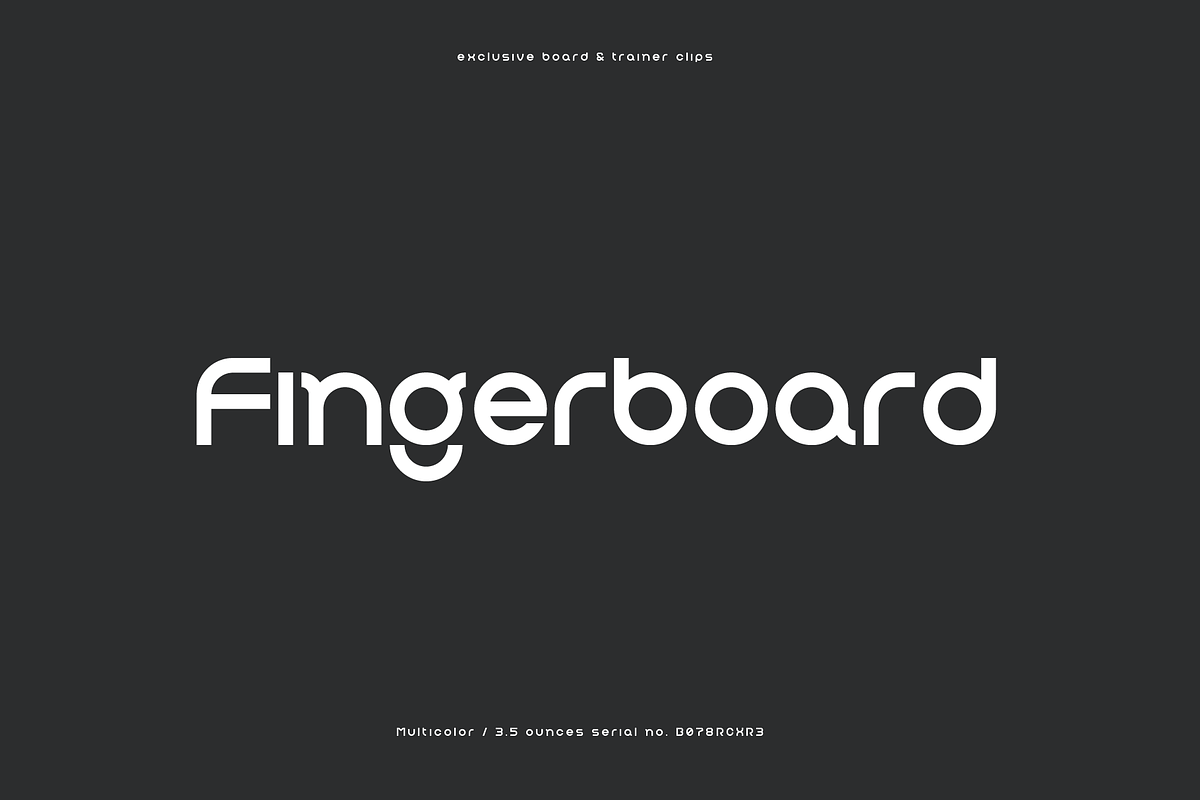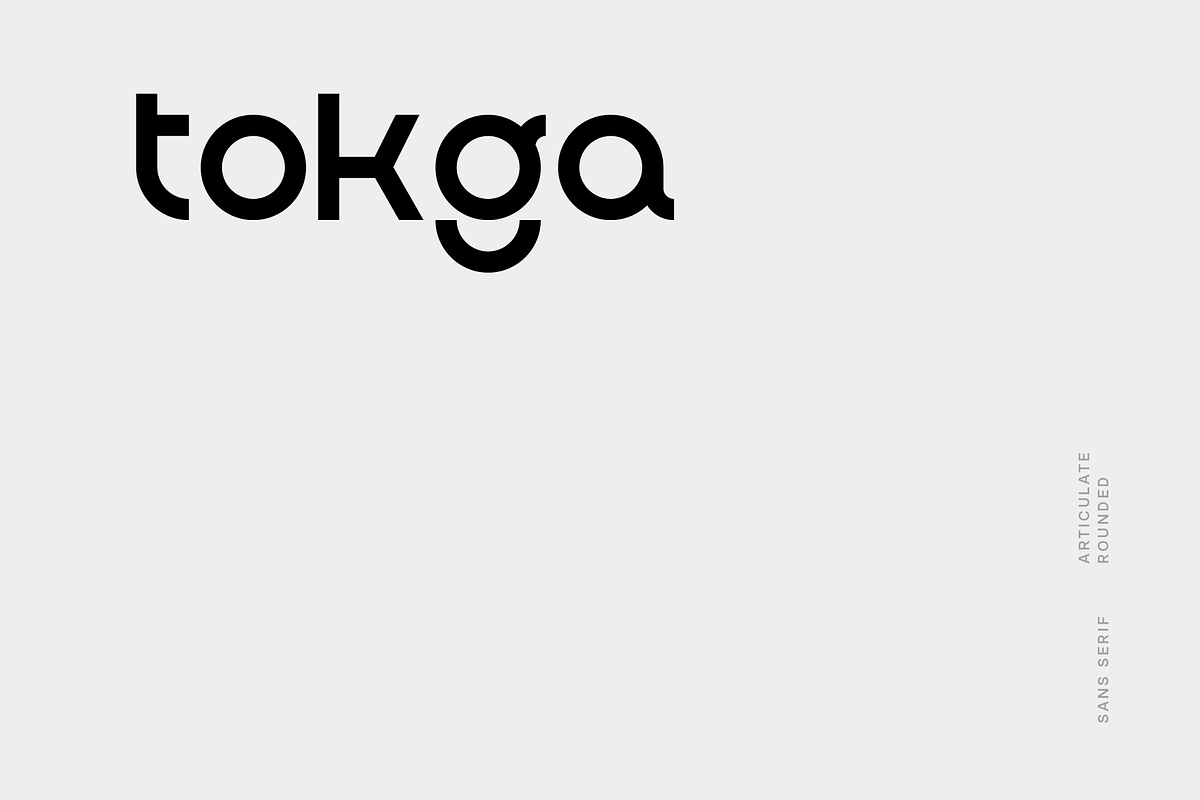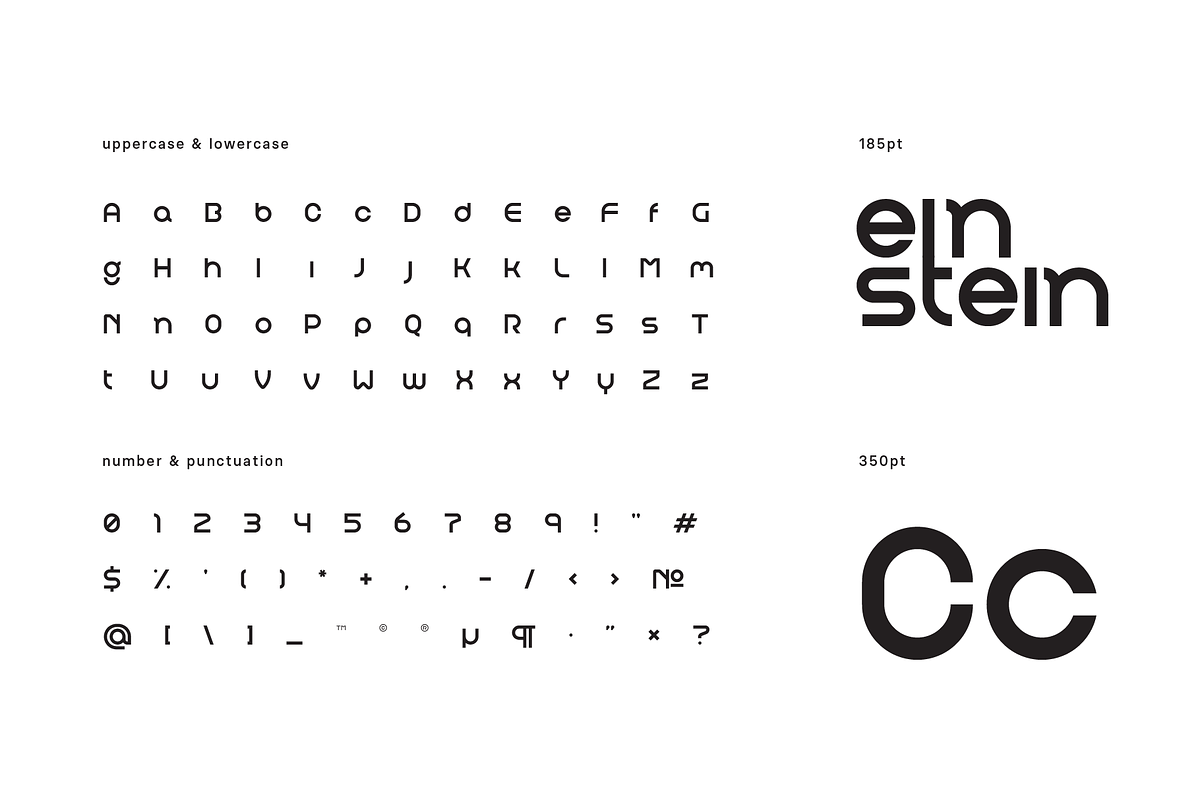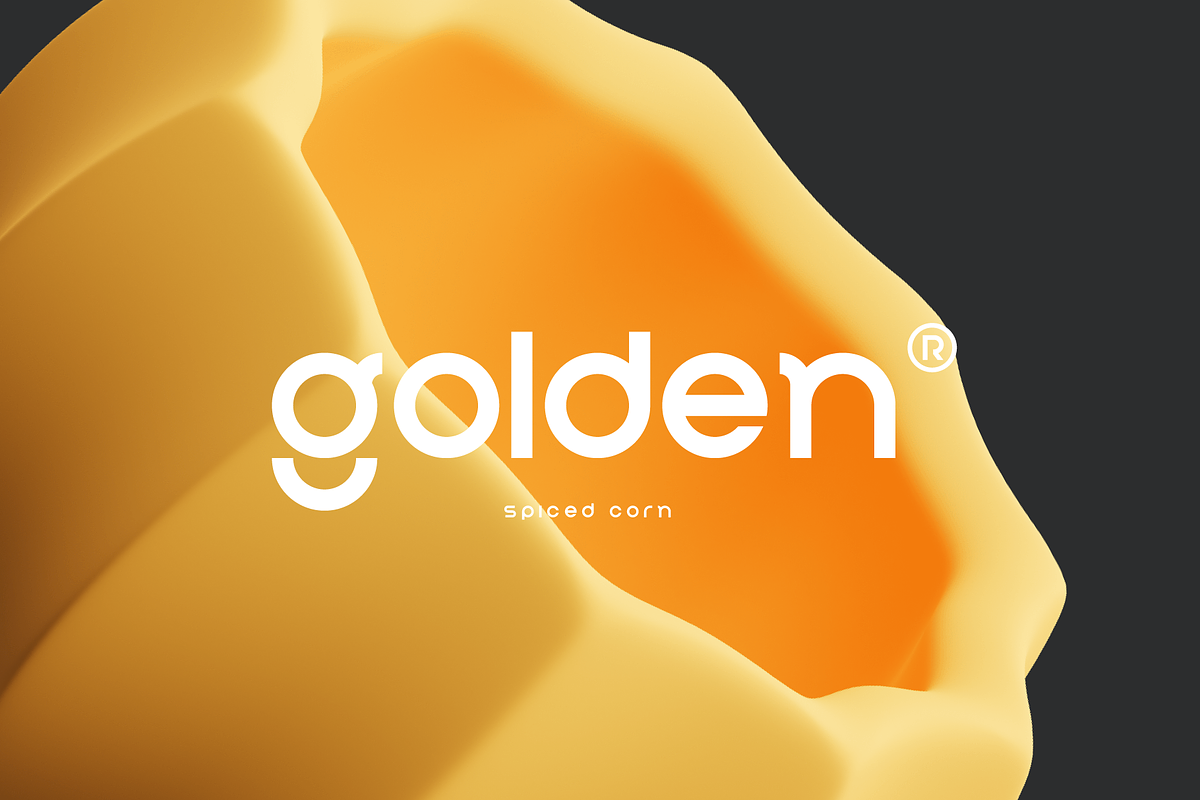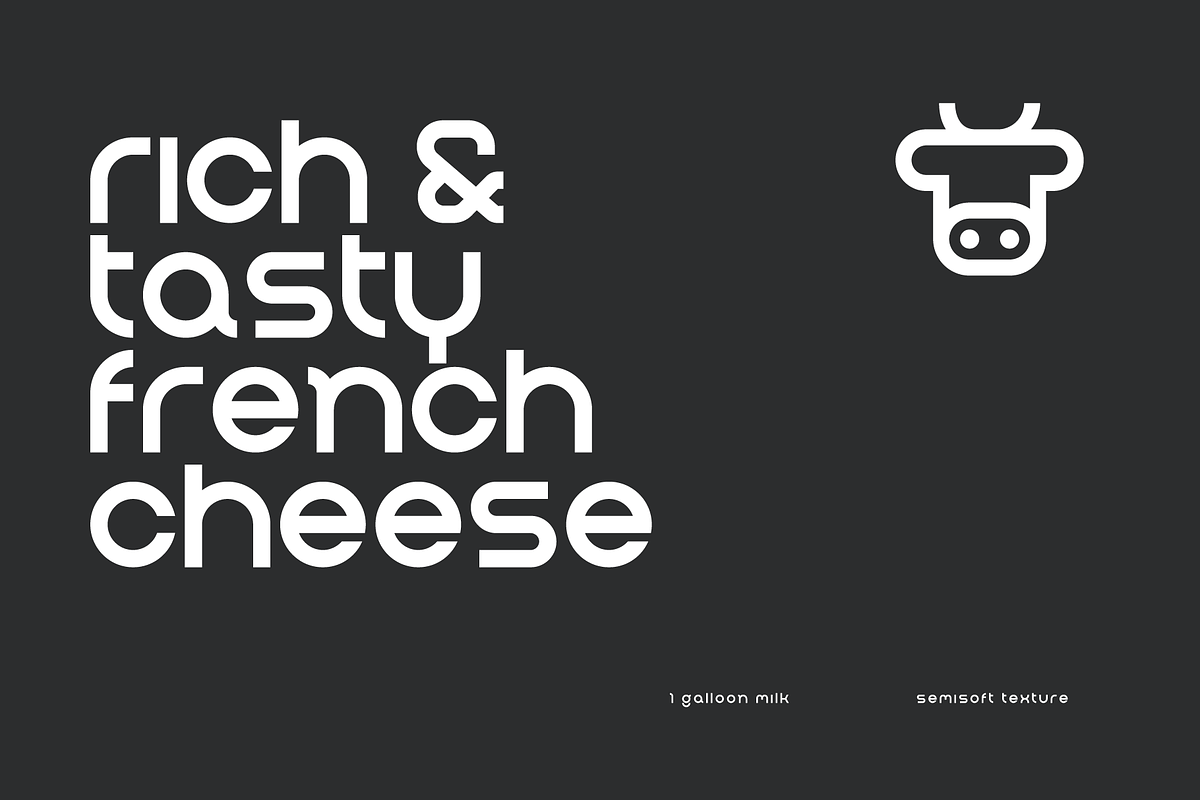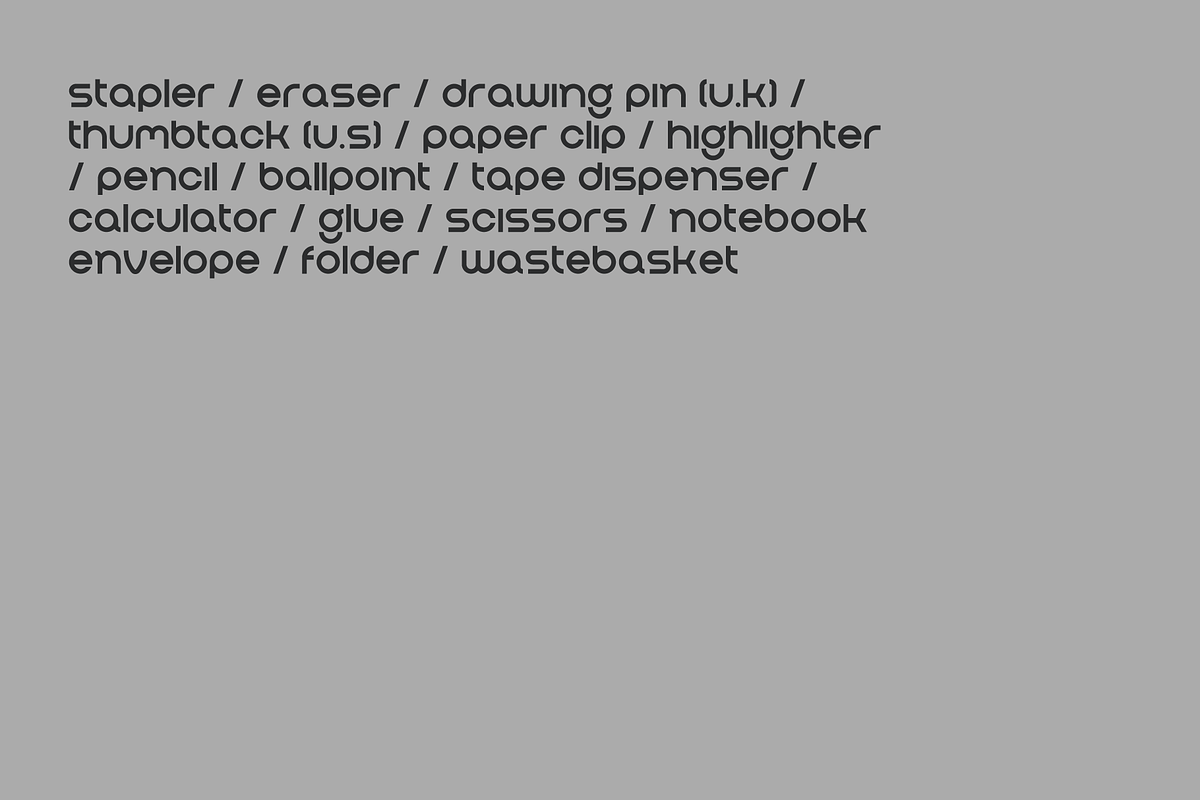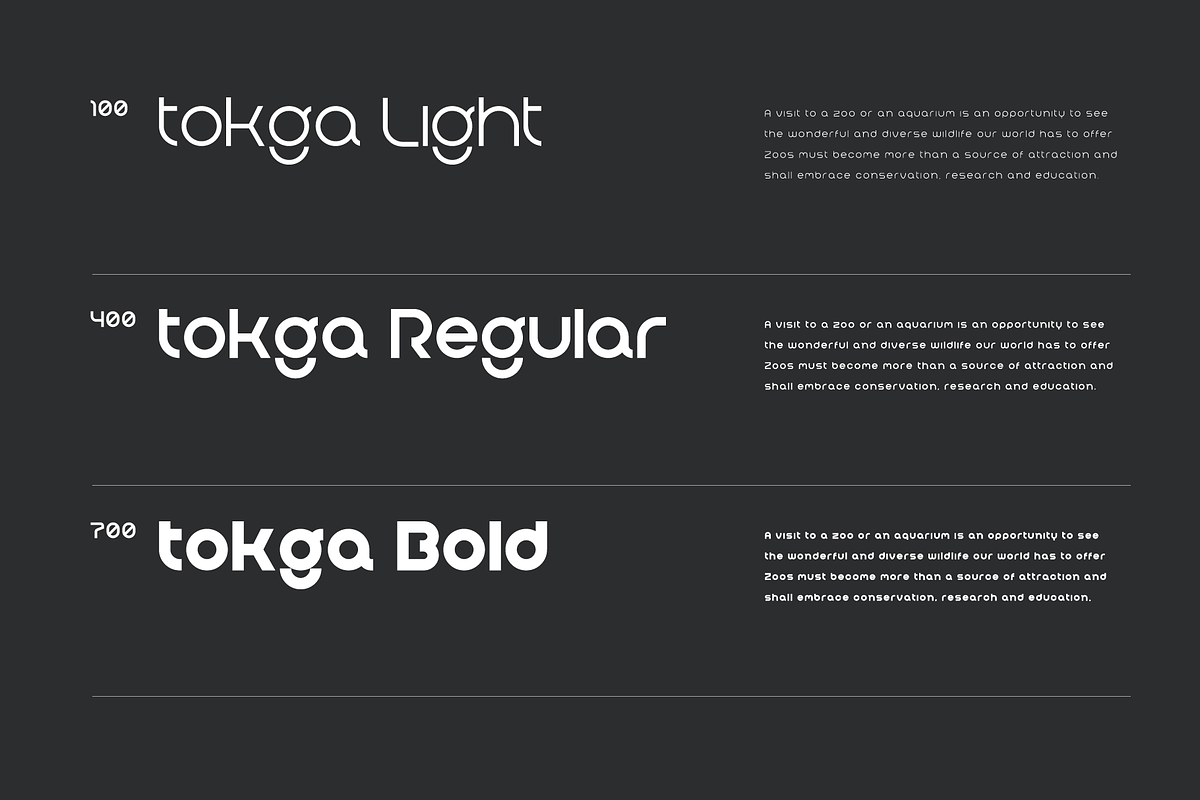
Tokga font
Tokga is a smooth and rounded linear sans with three different weights apt for headline, editorial, branding, packaging, printed materials and typographic applications, opentype .otf and .woff included.